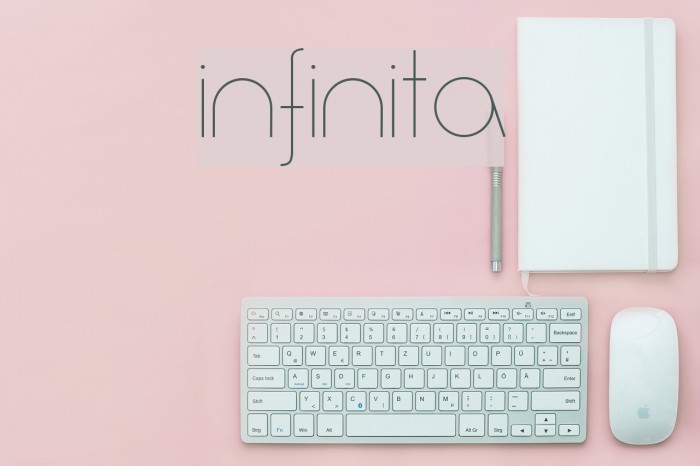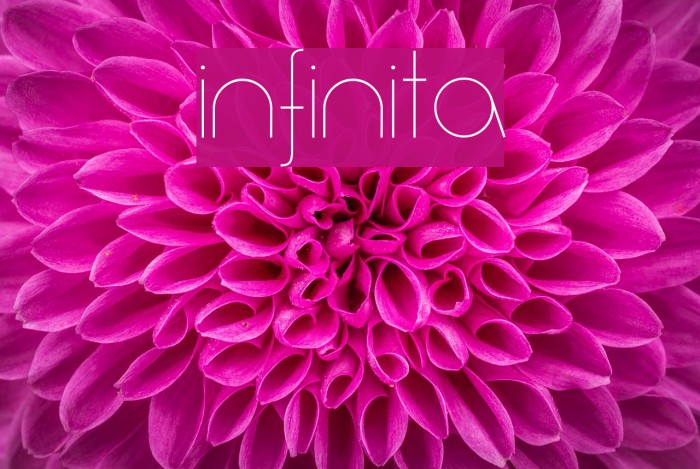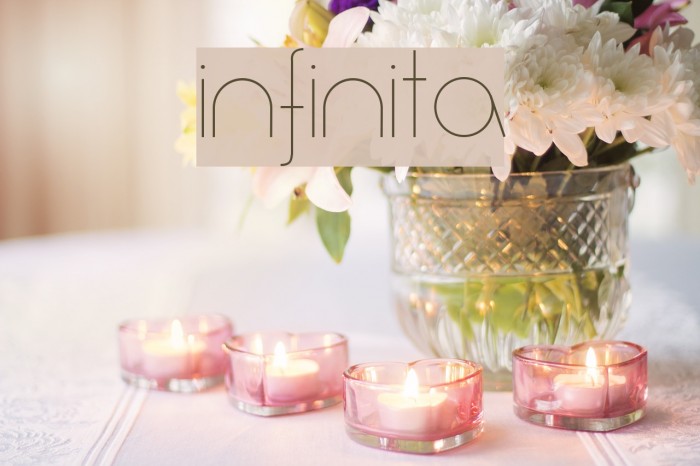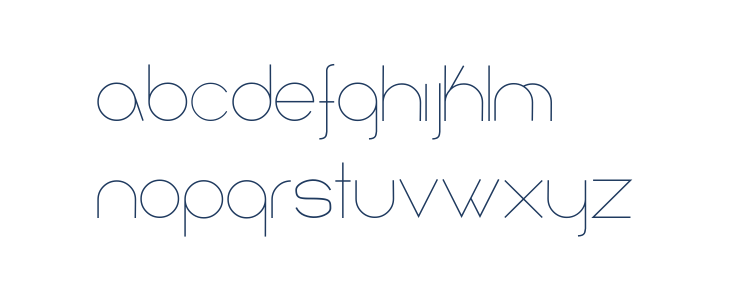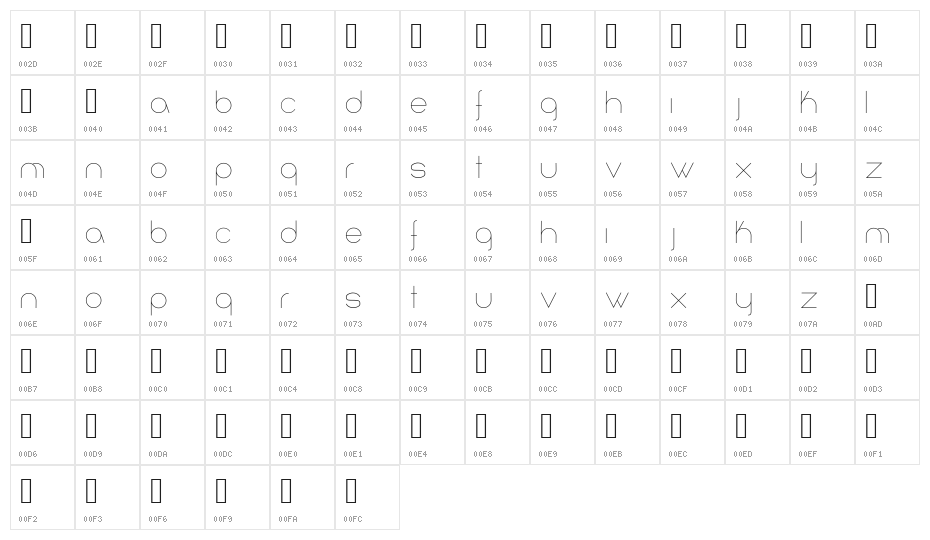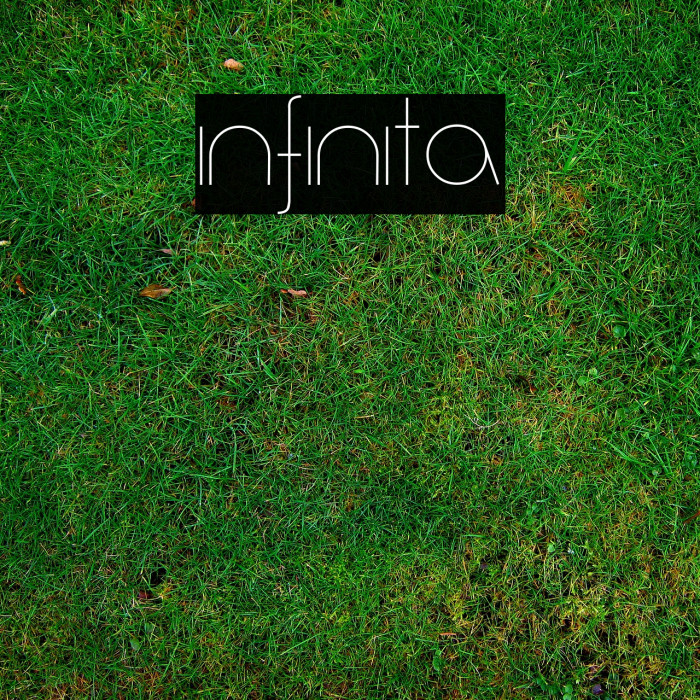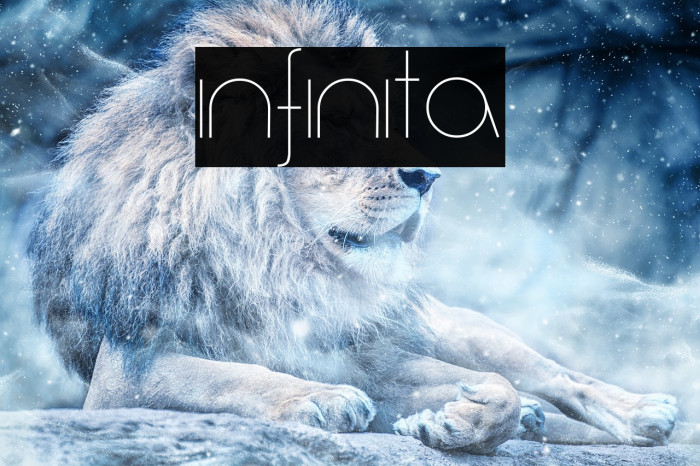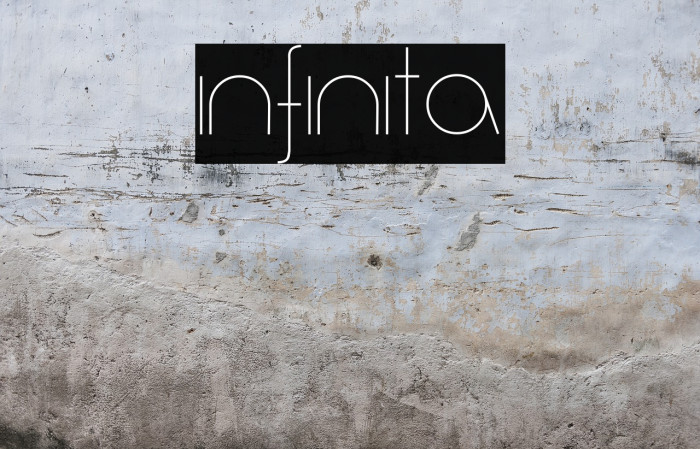
Infinita Font
Infinita Description
This font features a sleek, minimalist design with thin, uniform lines that create a modern and sophisticated appearance. The characters are elegantly elongated, with a geometric structure that emphasizes clean curves and straight lines. The uppercase and lowercase letters maintain a consistent style, offering a harmonious look across the alphabet. The numerals and special characters are designed to match the overall aesthetic, providing a cohesive and stylish appearance. This font's simplicity and elegance make it suitable for a variety of design projects.
| Proposed Projects | Ideal for modern branding, minimalist posters, elegant invitations, and contemporary web design. |